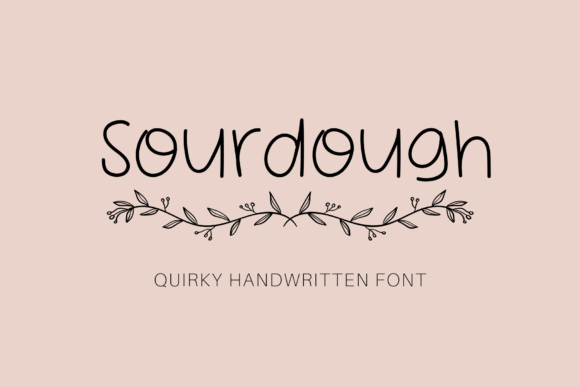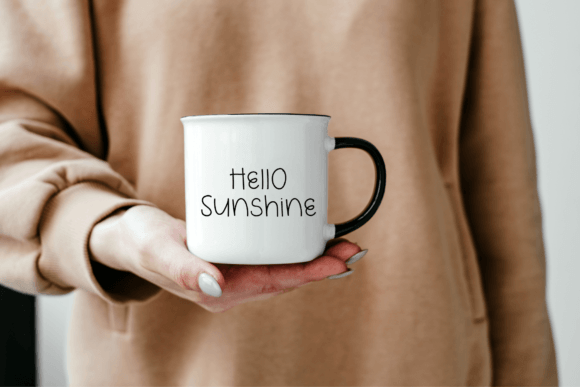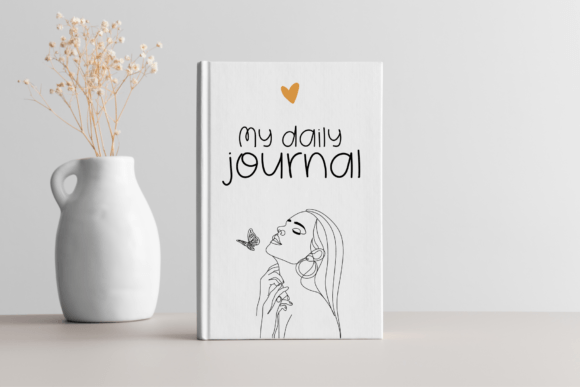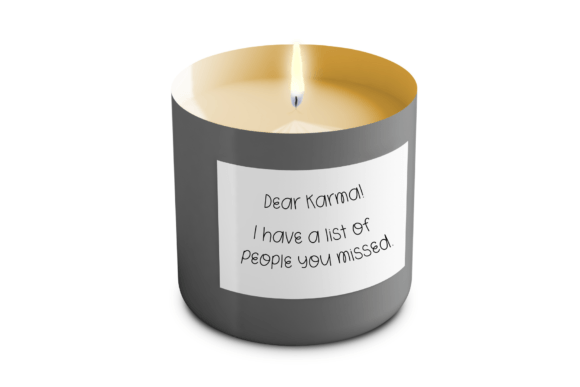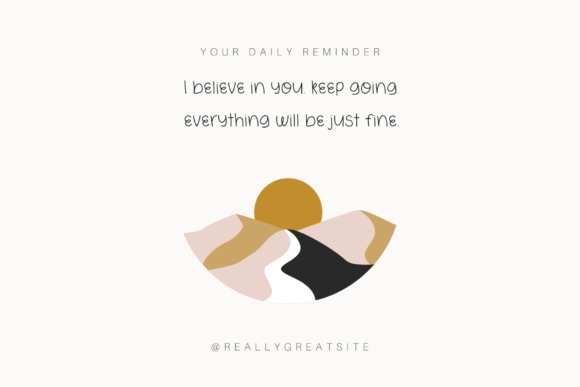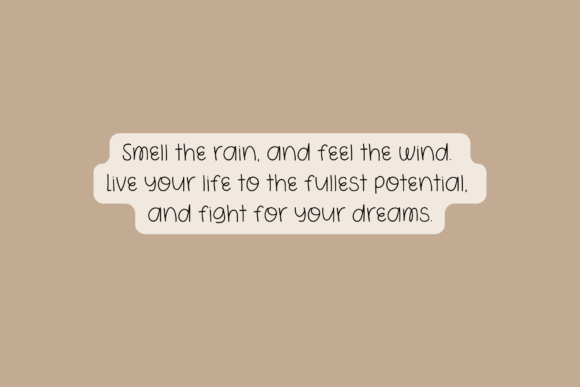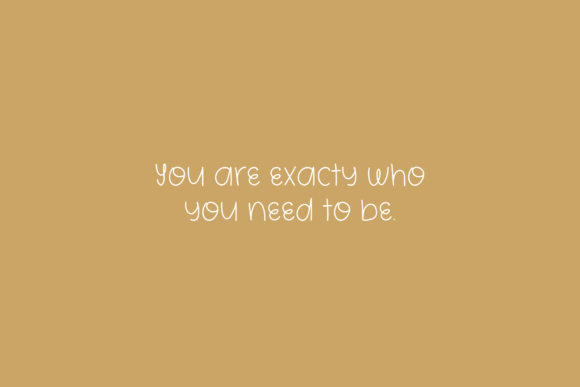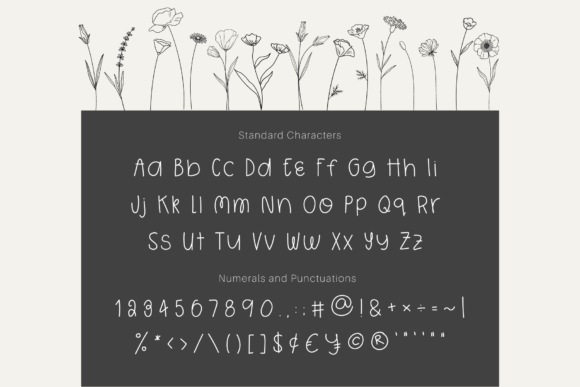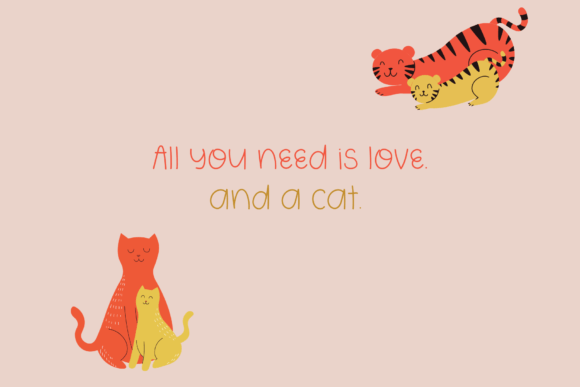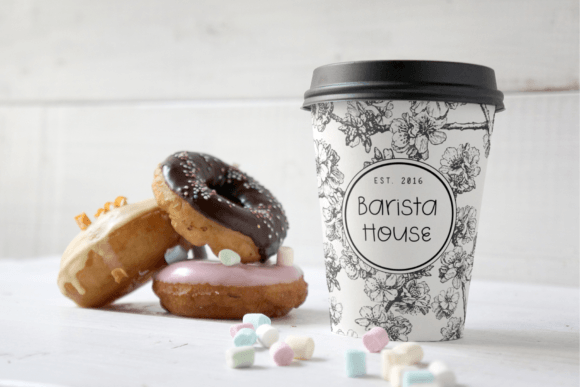
Sourdough Font
About Sourdough Font
Sourdough is a handwritten font perfect for digital notes, planners, logos, web design, notebooks, journals, labels, blogs, quotes, greeting cards, tea towels, apparel, pillows, mugs, toys, posters, baby clothing, picture books and so much more… basically anything that requires a handwritten look! ????